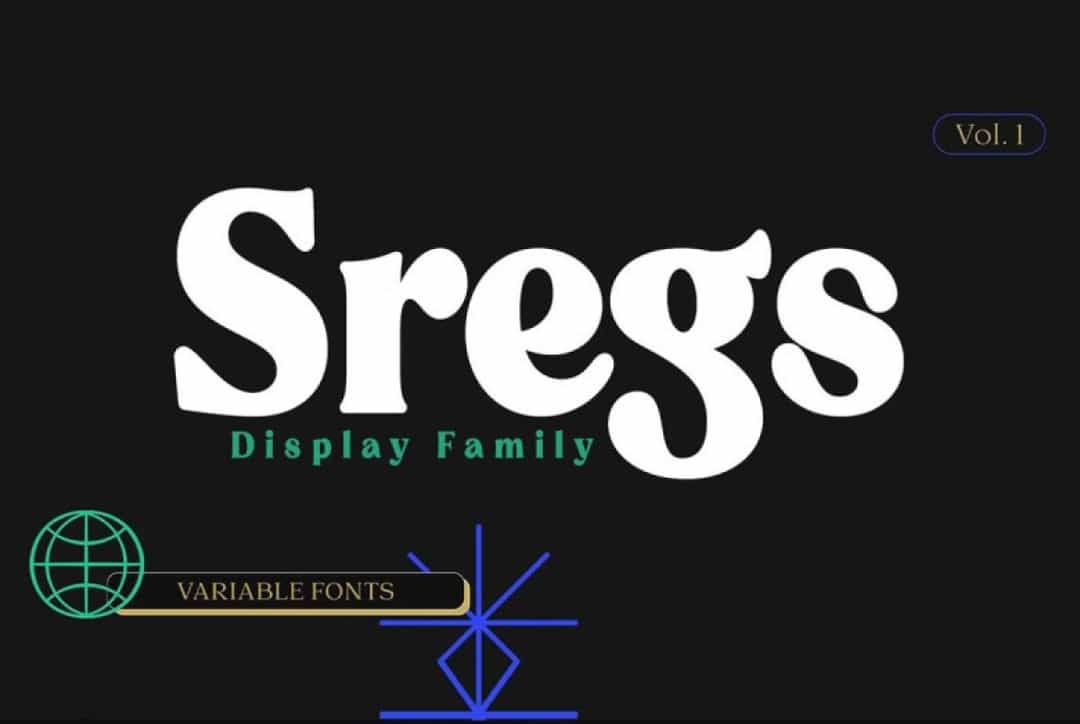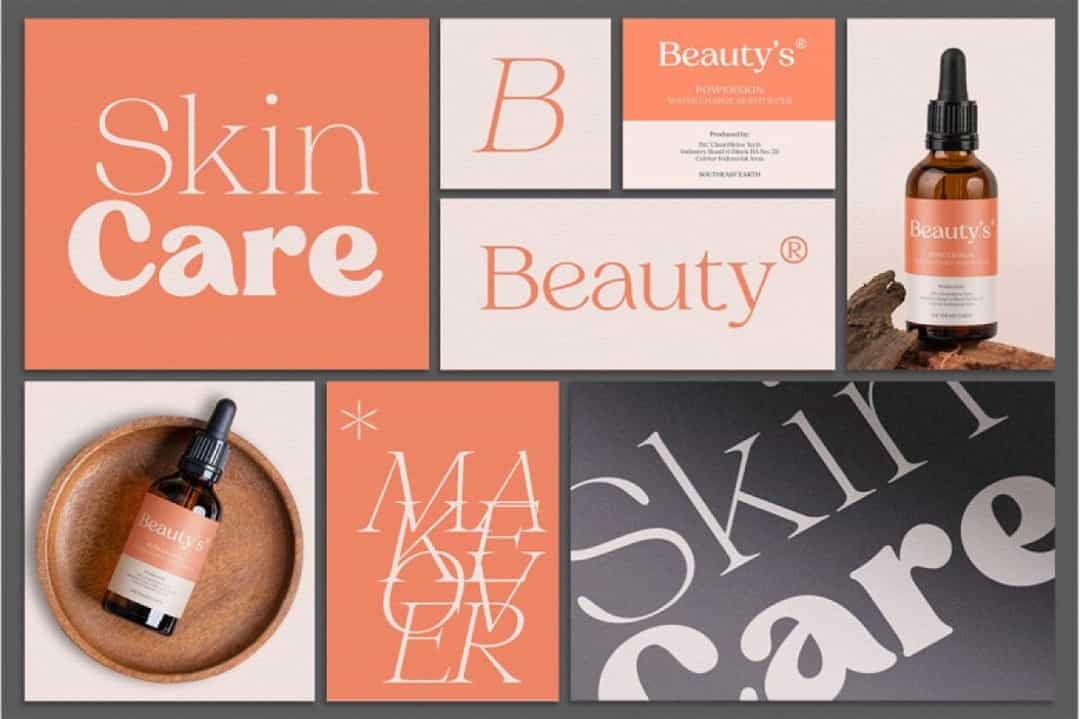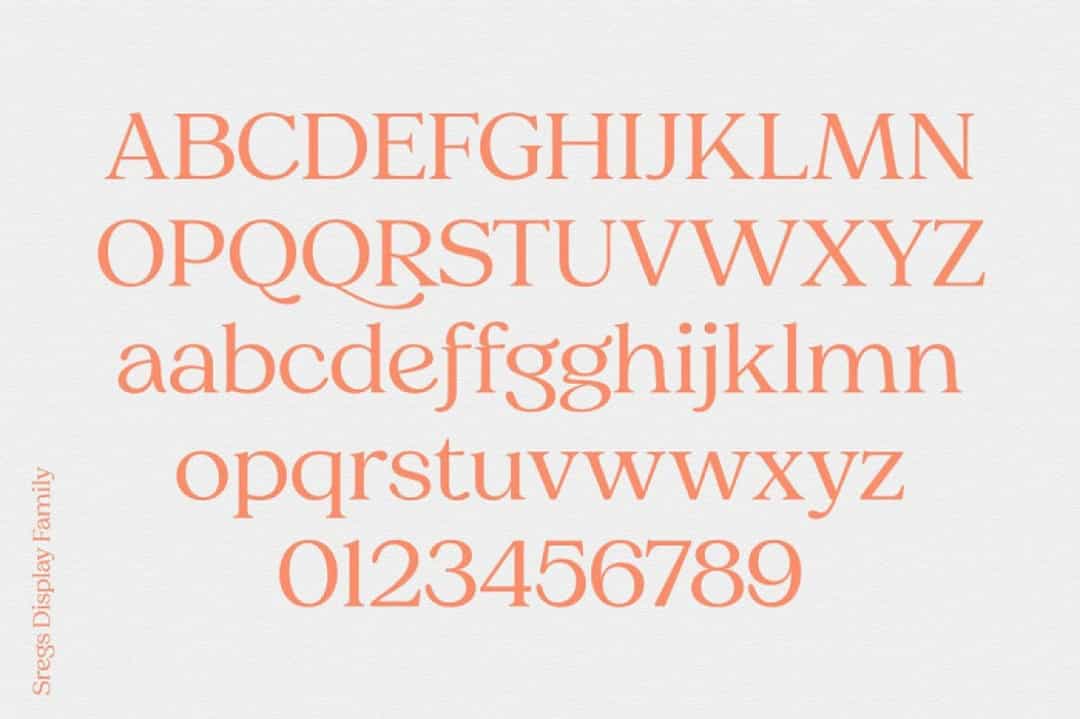
Sregs is an e-serif show serif font family that was inspired by 1960s-80s typography, yet features contemporary touches popular today. Soft transitions and reflexive serifs allow letters to be easy for readers to comprehend and recognize; there are 7 weight font designs (Standard as well as Italic) plus two font formats to help find your perfect style!